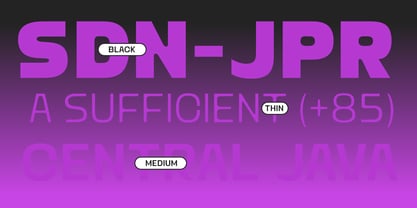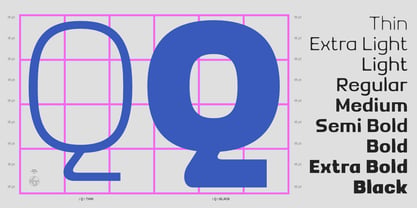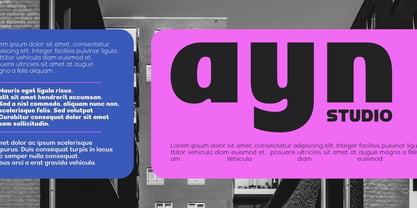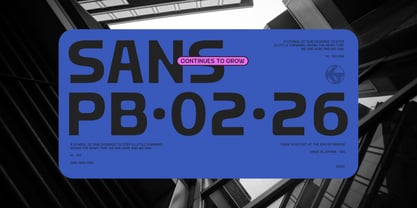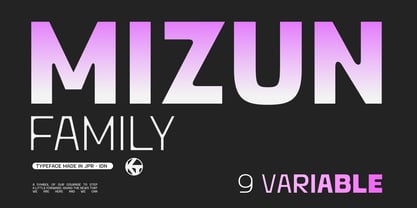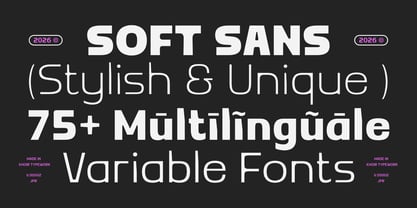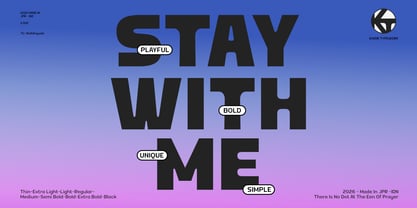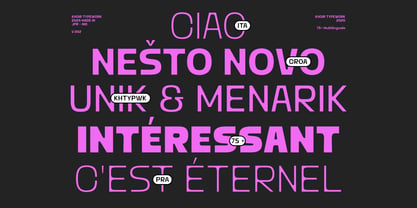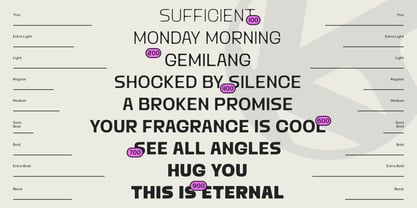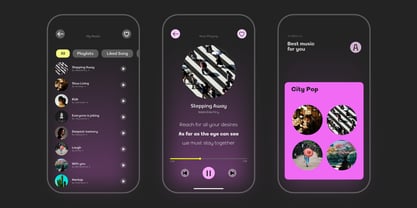
Mizun Typeface
Die Schriftfamilie Mizun Typeface wurde von Muhammad Romzul Khoir entworfen und von Khoir veröffentlicht. Mizun Typeface enthält 5 Stile und Familienpaketoptionen. Mehr über diese Familie
Mizun Typeface is a sans-serif font with a touch of freedom, uniqueness, and expressive character. Leaning towards a display style, it features distinctive letterforms that set it apart from standard sans-serifs while remaining highly readable—even for body text. It comes in 9 weights, giving you plenty of flexibility to explore and choose the perfect look. Don't wait—give it a try!
Typeface Features:
- 9 Weights—Thin, Extra Light, Light, Regular, Medium, Semibold, Bold, Extra Bold & Black.
- Extended Latin Character Set (supports over 75 languages)
- Numerals
- Punctuation & Symbols